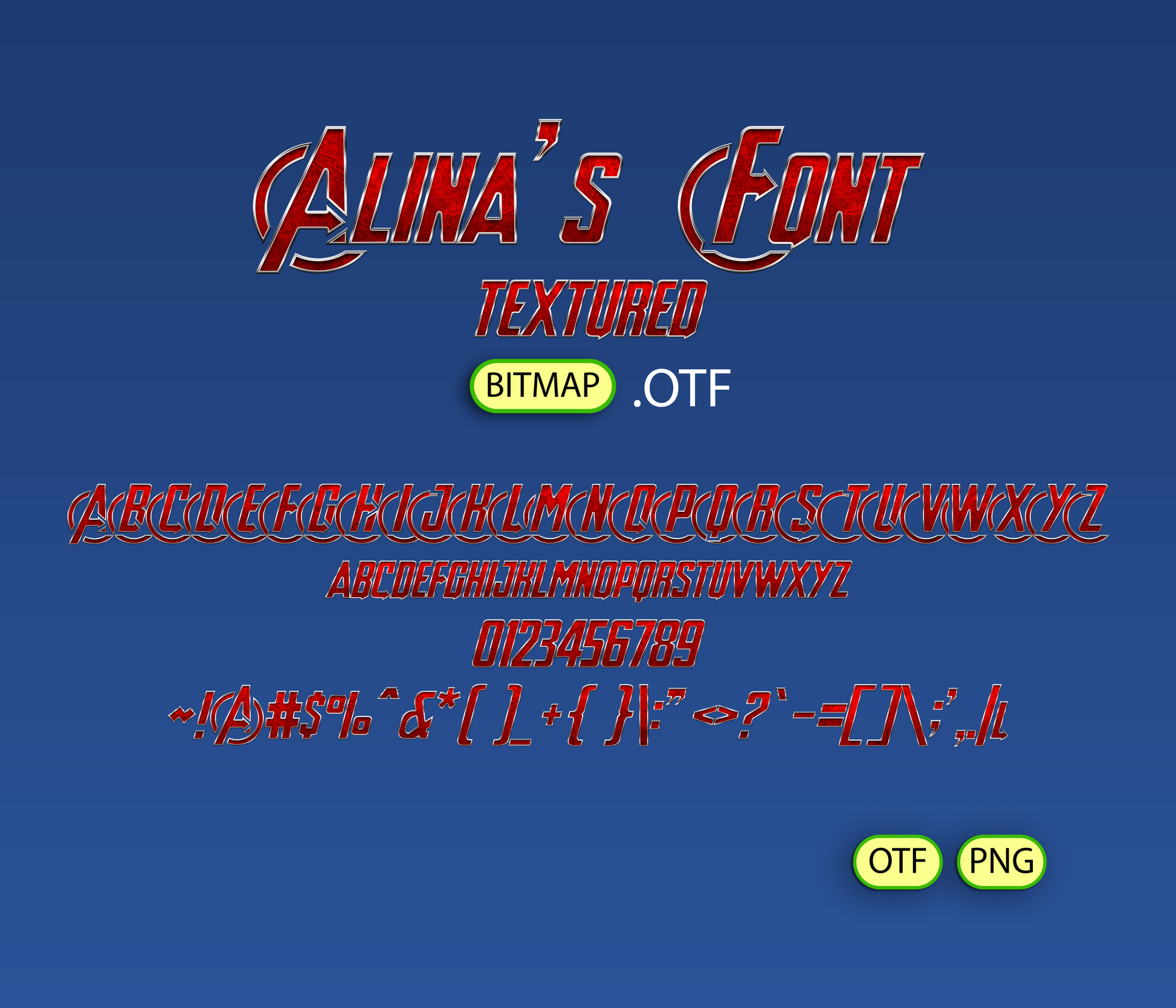
Hero Alliance Craft Font Textured
Hero Alliance Craft Textured Bitmap Font for Fans of Epic Battles
Hey there, superhero fans and crafters! Get your hands on Alina's HeroCraft, our textured bitmap font that's all about those legendary champions we can't get enough of. Want to make your crafts stand out? This font is perfect for you. Got a Cricut? You're in luck! HeroCraft works like a charm for all sorts of projects.
Whether you're putting together some awesome cake toppers for a superhero birthday party or making decals to decorate your space, this font makes it easy to add that special touch. Planning a get-together? Use HeroCraft for your birthday invites and get everyone buzzing about your epic party. Your invitations will look like they came straight out of a superhero saga.
Love making your own tees?
This font is ideal for:
- Creating themed party decorations
- Designing custom superhero apparel
- Crafting unique greeting cards
- Making eye-catching social media graphics
- Personalizing fan merchandise
- Developing fun superhero-inspired educational materials
- Designing logos for comic book stores or gaming cafes
- Creating playful website headers for fan sites
- Crafting memorable invitations for comic conventions
- Adding heroic flair to DIY craft projects